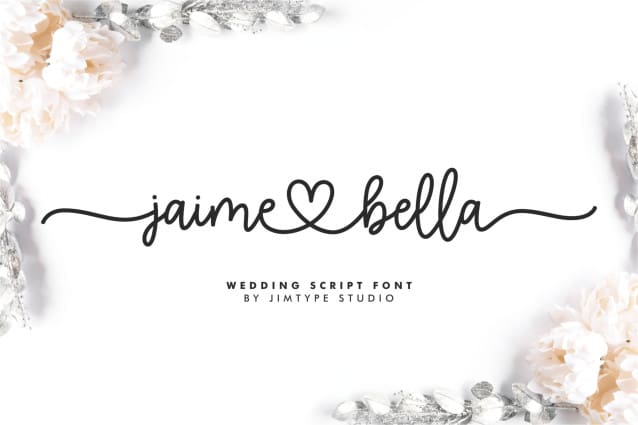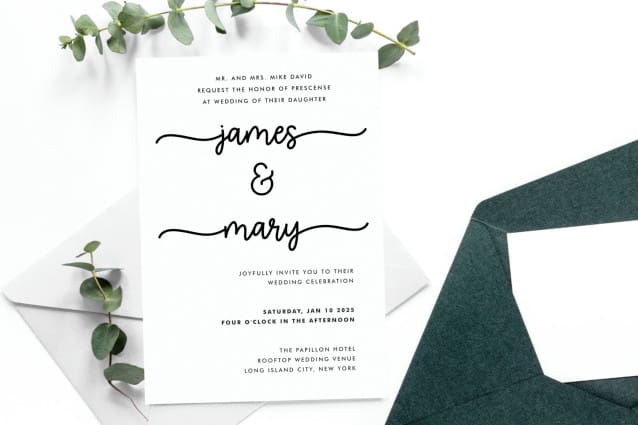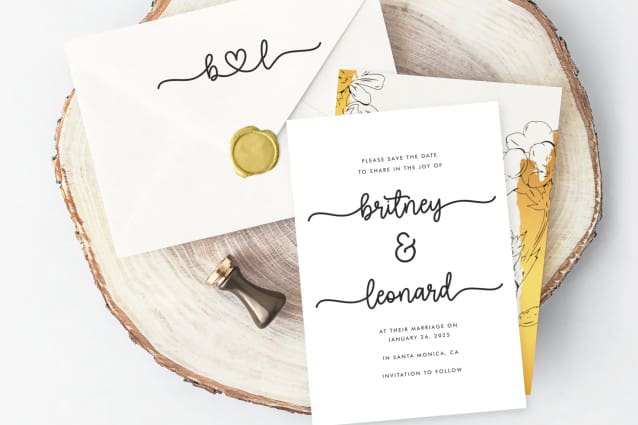
Jaime Bella Font
Jaime Bella Font. Inspired by the French word for “I love,” we anticipate widespread appeal and believe it is ideally suited for wedding projects celebrating romantic. The Jaime Bella Font embodies the spirit of love and is the perfect choice for projects demanding a combination of romance and elegance. Its suitability extends to weddings, branding, and designs requiring a heartfelt touch.